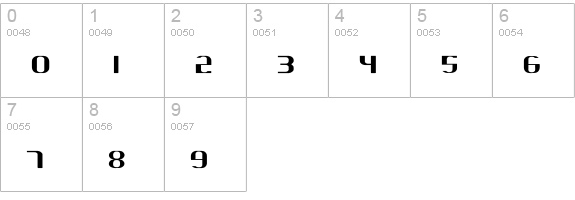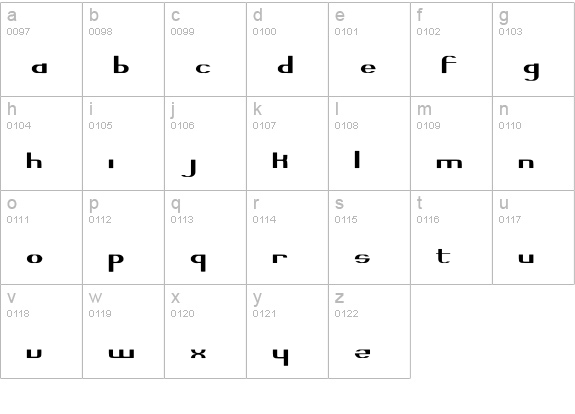
Highguard New Font Details
Highguard New font is a modern and stylish typeface that exudes elegance and sophistication. Its sleek lines and sharp edges make it perfect for a wide range of design projects, from branding to editorial design. The font features clean and crisp letterforms that lend a contemporary touch to any text. What sets Highguard New font apart is not only its aesthetic appeal but also its versatility. Whether used for headlines, body text, or logos, this font delivers a polished and professional look. It is a versatile typeface that can adapt to various design styles and aesthetics. What's more, Highguard New font is available for free download at FontsMarket.com, making it easily accessible to designers and creatives looking to elevate their projects with a touch of sophistication. Don't miss out on the opportunity to enhance your designs with this elegant and modern font. Download Highguard New today and let your creativity shine.